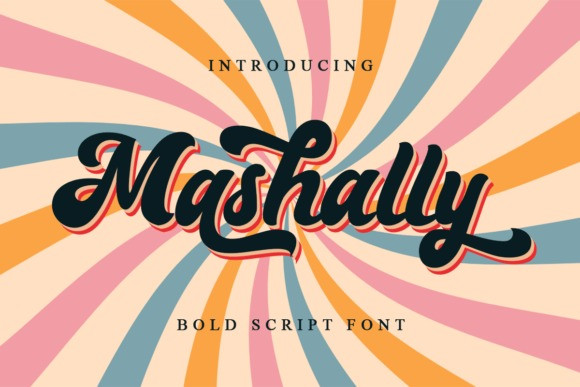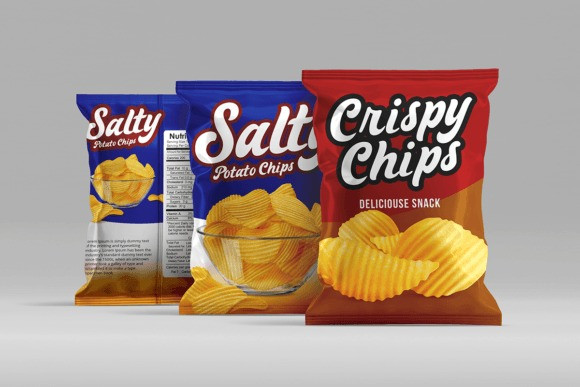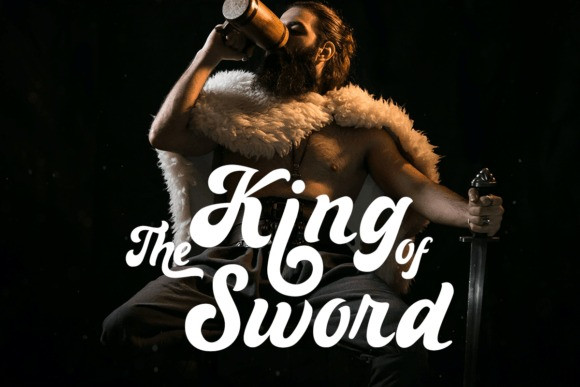
Mashally Font
Mashally is a gorgeous handwritten font inspired by vintage calligraphy. It is great for invitations, T-shirt designs, lettering, quotes, greeting cards, and much more! Mashally is perfect for those who want to make their work, projects, and writing look more natural and personal.